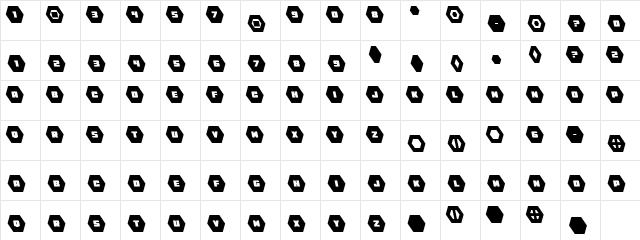
HeXkEy Solid Leftalic Regular
Design Context for HeXkEy Solid Leftalic Typeface
HeXkEy Solid Leftalic is a composed and adaptable typeface that performs quietly and consistently across a wide range of design contexts. The dynamic lean of this cut emphasises speed and emphasis in any layout.
Pro Tip: Use HeXkEy Solid Leftalic for emphasis, pull quotes, and subheadings where its slanted energy can add rhythm to the layout.